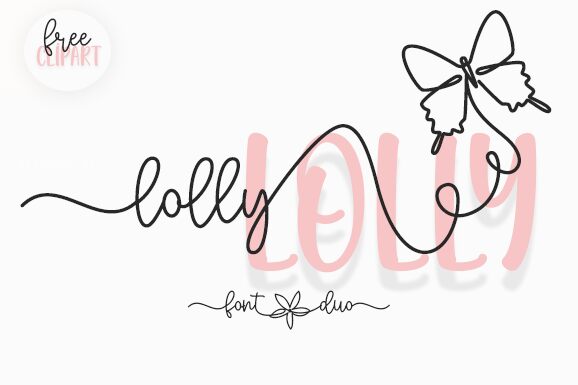
Lolly, a delightful creation by the renowned designer Fillo Graphic, is a charming handwritten font that exudes a light and playful essence. Its graceful curves and gentle strokes make it perfect for whimsical projects such as children's books, greeting cards, and nursery art. With its airy weight, Lolly adds a touch of innocence and joy to invitations or wedding stationery. Whether you're designing logos for sweet confectioneries or creating captivating social media posts, this typeface will inject your projects with an enchanting and unique appeal. Indulge in the magic of Lolly and let your creativity soar!